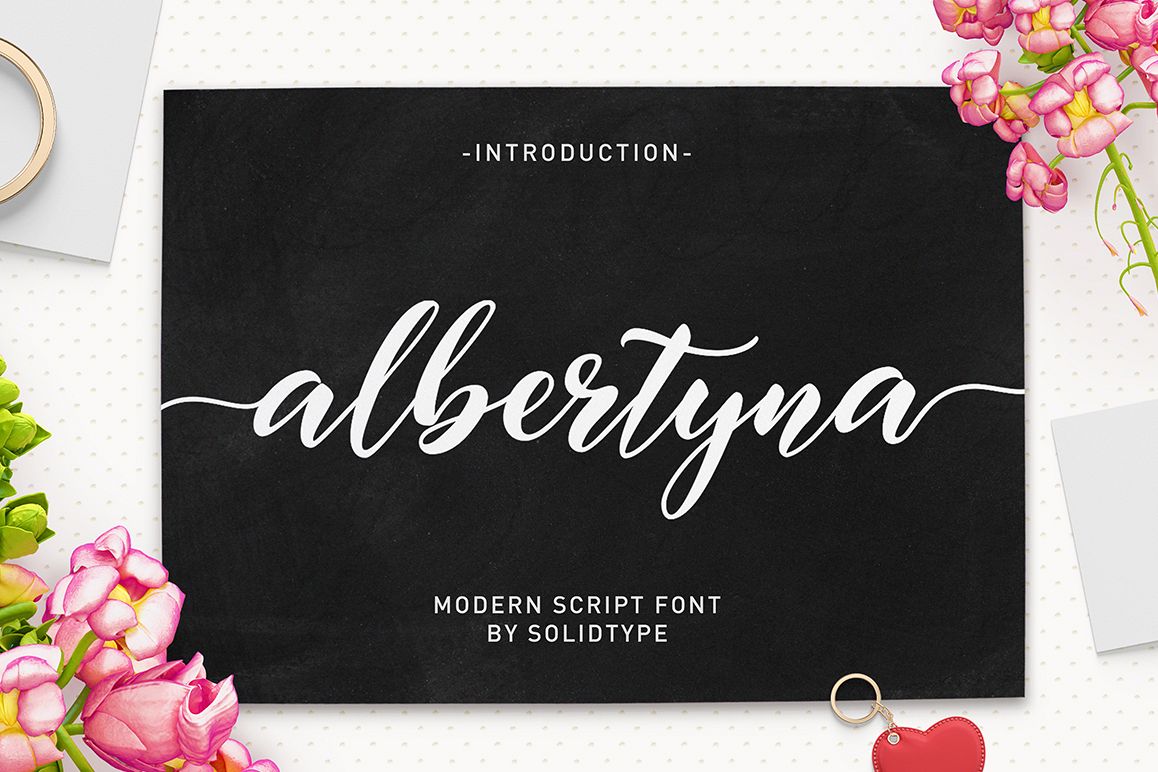
Albertyna Script
Say hello to Albertyna Script A lovingly modern script calligraphy, elegant, tasty flow and playful with swashes. Features Open type feature, stylistic alternates, ligatures and International support for most Western Languages. You need a program that supports OpenType features such as Adobe Illustrator CS, Adobe Photoshop CC, Adobe Indesign.
Perfect to creating modern designs like ads, sales, logos, branding, posters, social media text overlays and wedding invitation. All lowercase letters include alternates, beginning & end swashes, that makes the font look fabulous!
Albertyna Typeface includes (total 3 fonts):
• Albertyna Regular
• Albertyna Medium
• Albertyna Bold